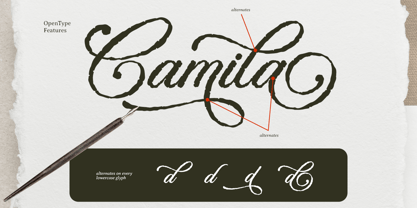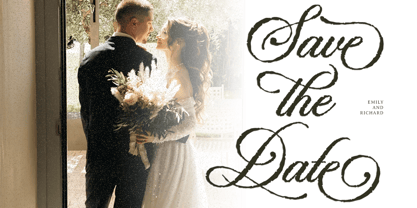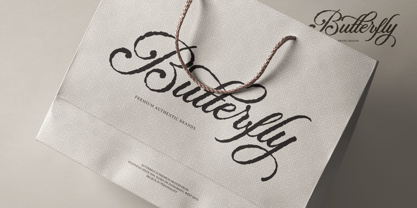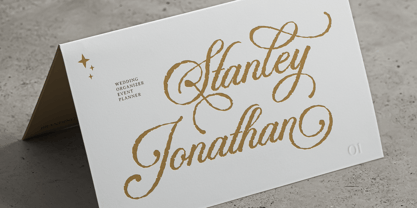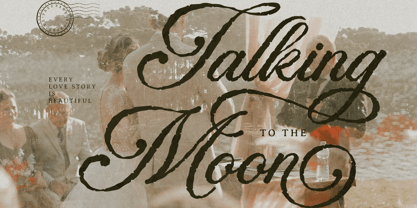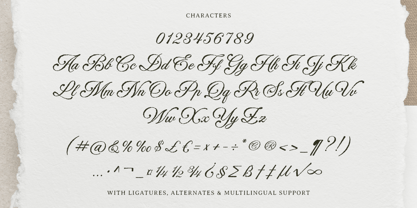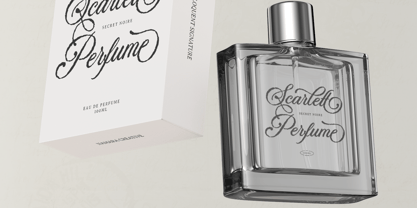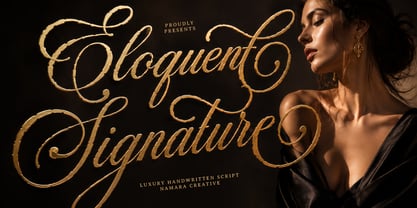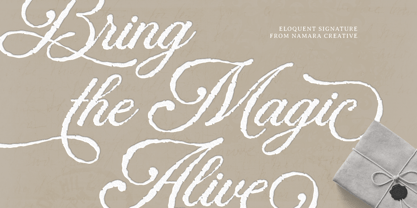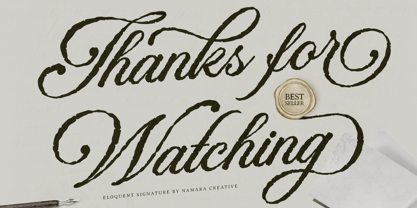
The Emergent Font Family was designed by Eep Apringga and published by Namara Creative Studio. Emergent contains 1 styles. More about this family
Emergent Signature is a elegant script font designed for modern romantics and refined brands. Featuring flowing calligraphic strokes, dramatic swashes, elegant ligatures, and stylistic alternates, this typeface helps transform ordinary words into unforgettable statements.
Whether you’re designing wedding invitations, premium packaging, social media content, or boutique identities, Emergent Signature delivers sophistication with effortless beauty.
• Full Character Set : Uppercase and lowercase, numerals and punctuations.
• Ton of Alternates : Additional glyph options for creative flexibility.
• Multilingual Support : Extended Latin character set covers Western European languages.
Bring elegance to every word with Emergent Signature elegant script font. Designed with intention, crafted for meaningful moments.
Designers: Eep Apringga
Foundry: Namara Creative Studio